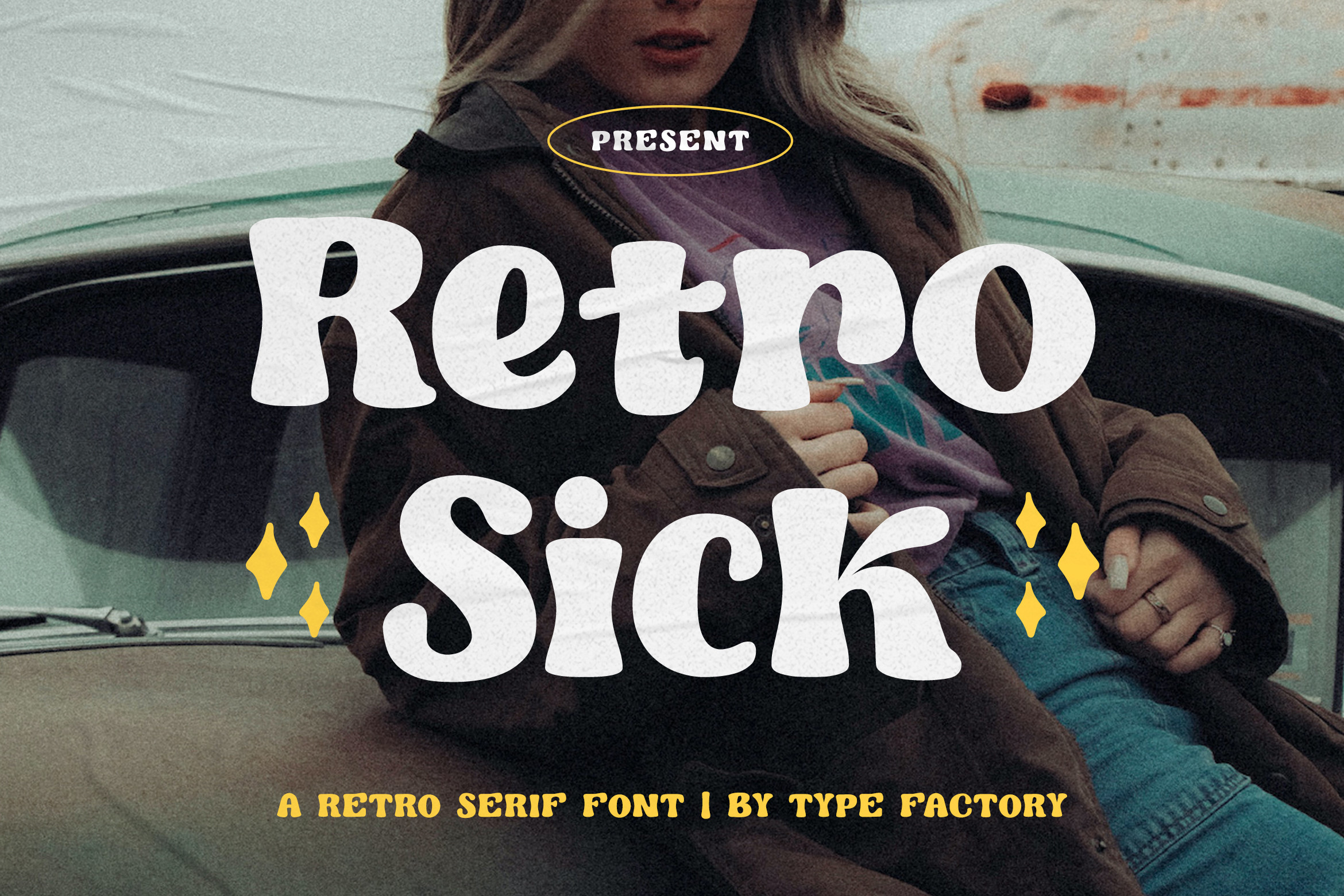
Retro Sick is a bold serif typeface that will give a retro aesthetic to any creative project you add it to. Its unique characteristics set it apart from all the other serif fonts. This font is very suitable for a wide range of creations that require a distinct touch.